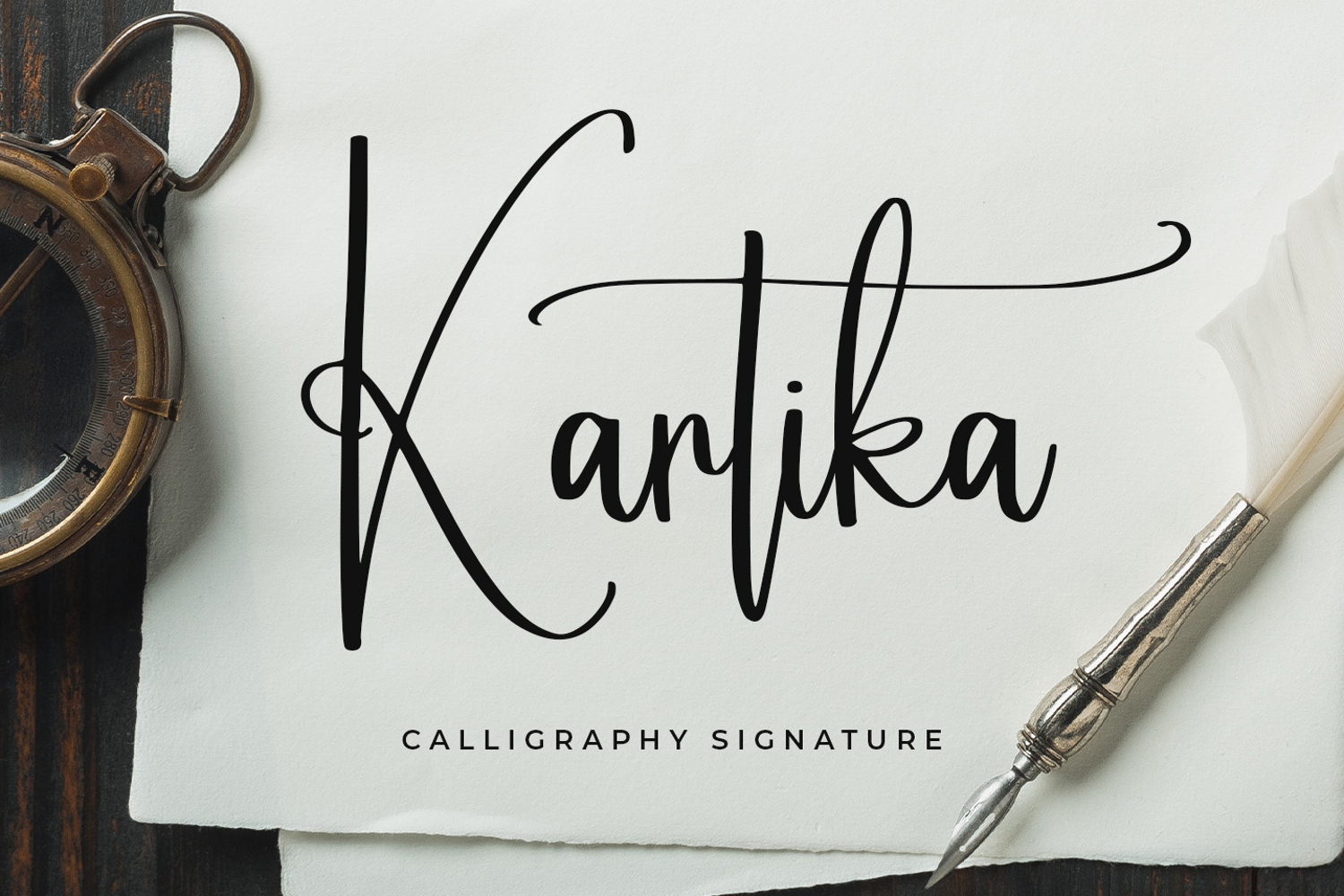
Kartika
introducing
KARTIKA
- calligraphy signature font-
KARTIKA is beautiful signature font.
It is great for branding, quotes, logos, t-shirt designs, tote bag designs, cards, banners, social media, and more.